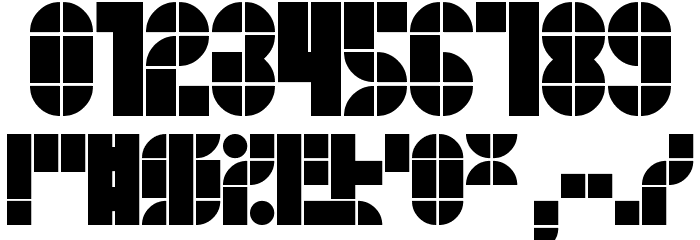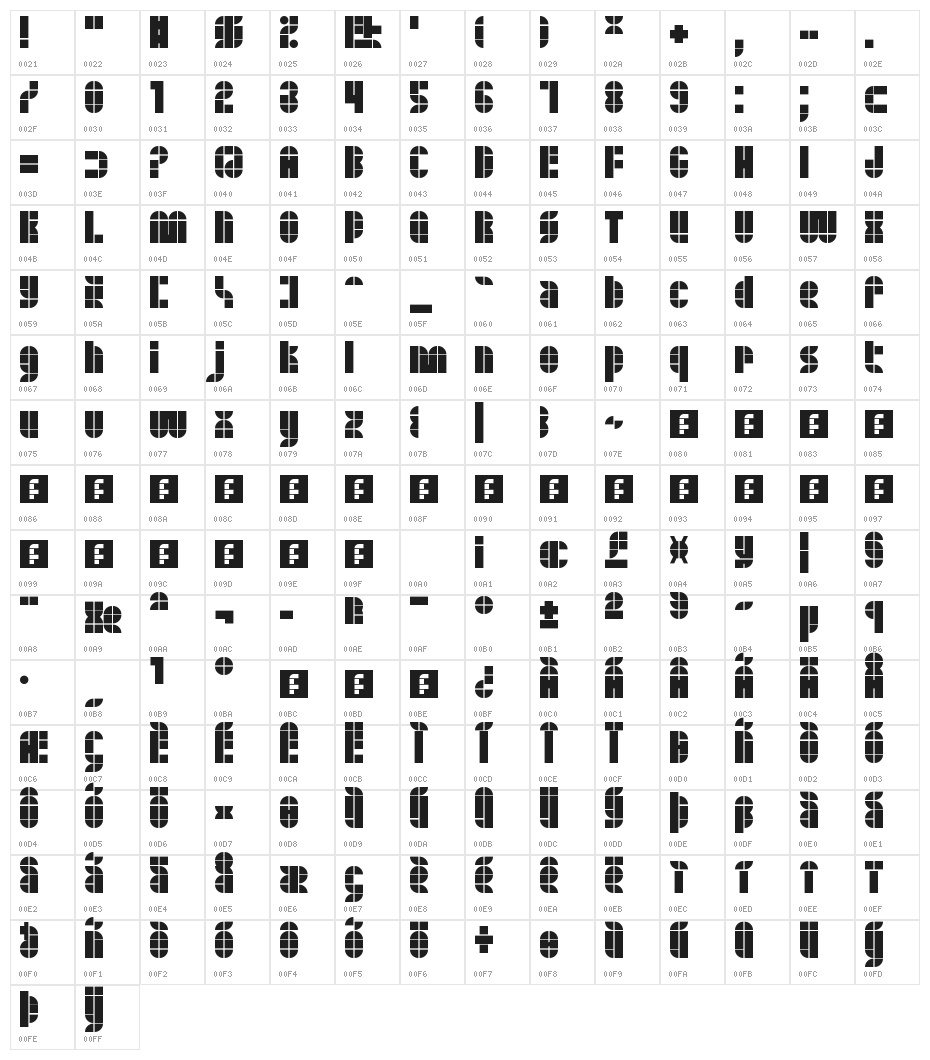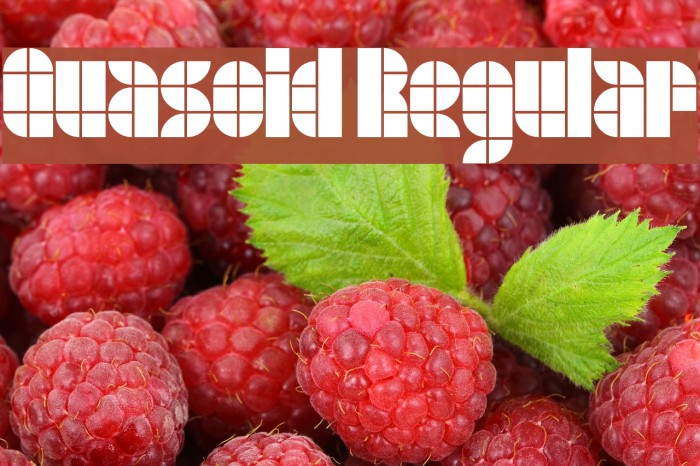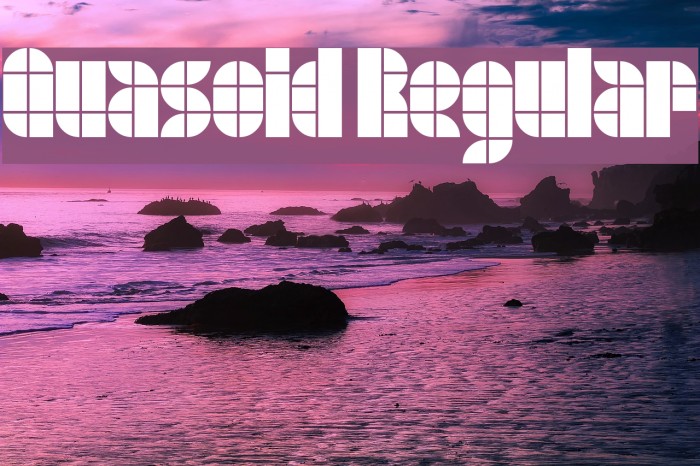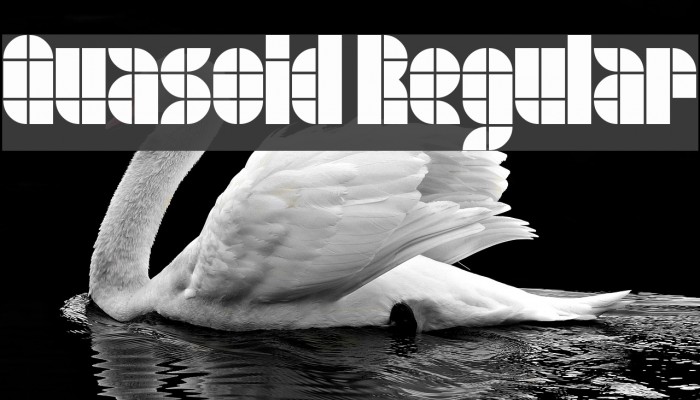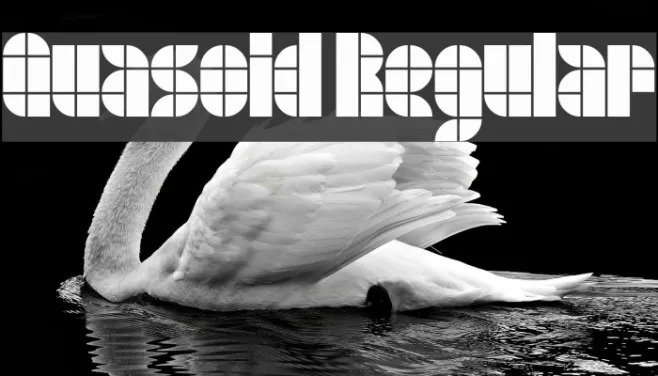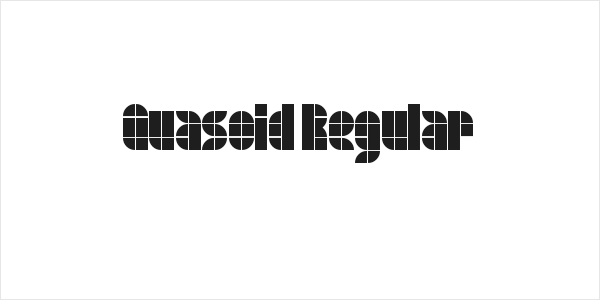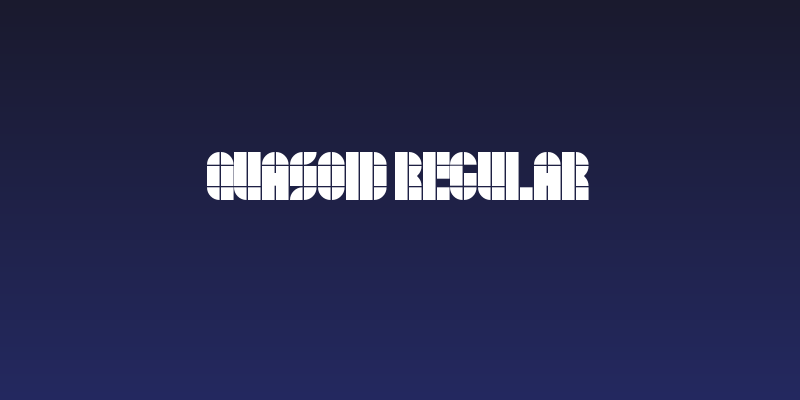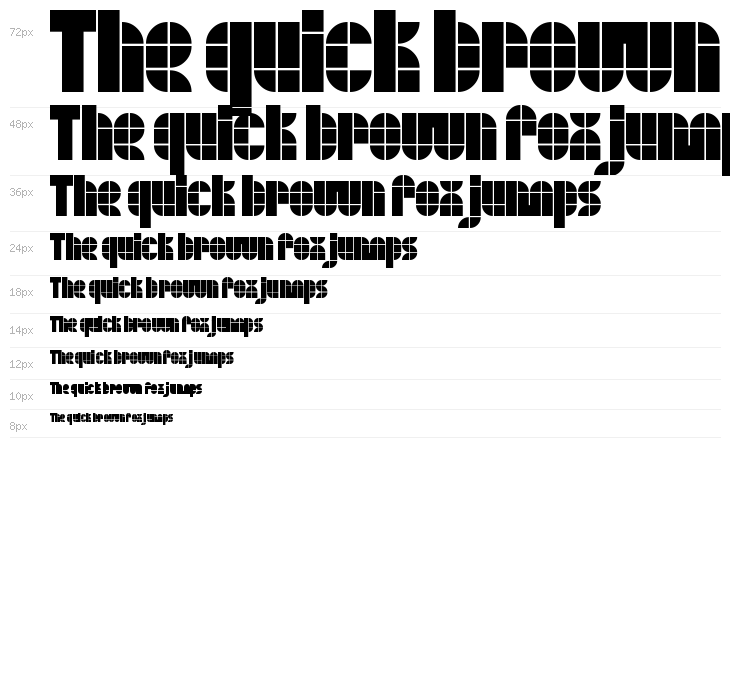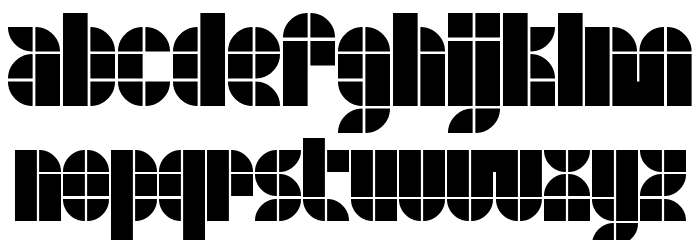
Quasoid Regular Font
Quasoid Regular Description
This font features a bold and geometric design, characterized by its block-like structure and circular cutouts. Each character is constructed with a combination of straight lines and curves, creating a futuristic and modular appearance. The uppercase and lowercase letters maintain a consistent style, with a strong emphasis on symmetry and balance. Numbers and special characters follow the same design principles, ensuring uniformity across all glyphs. The font's unique aesthetic makes it stand out, offering a striking visual impact.